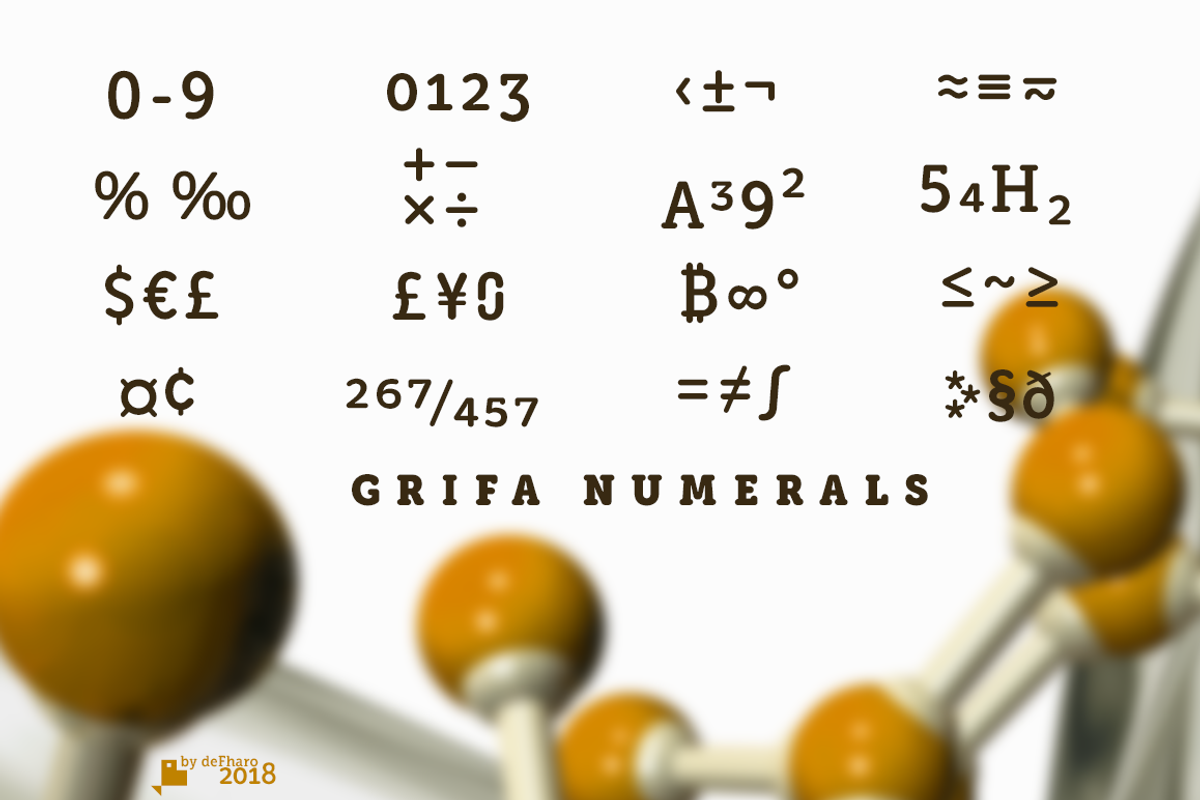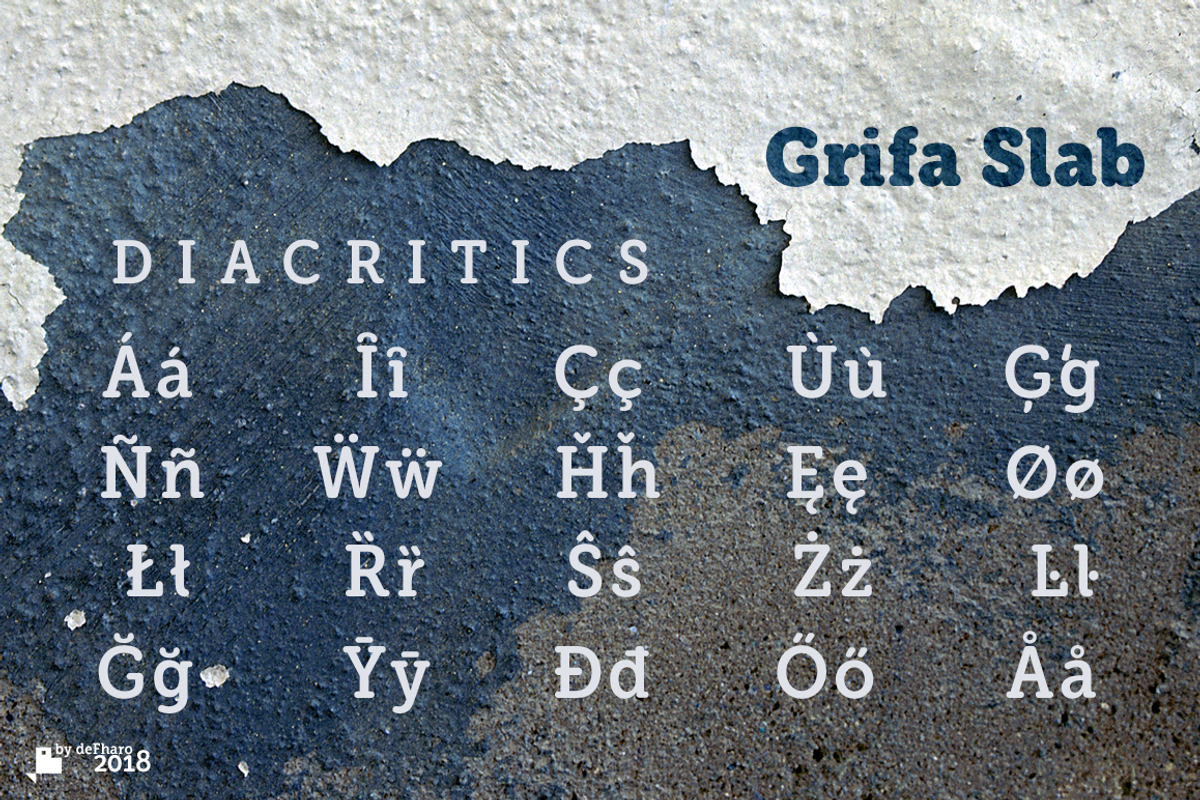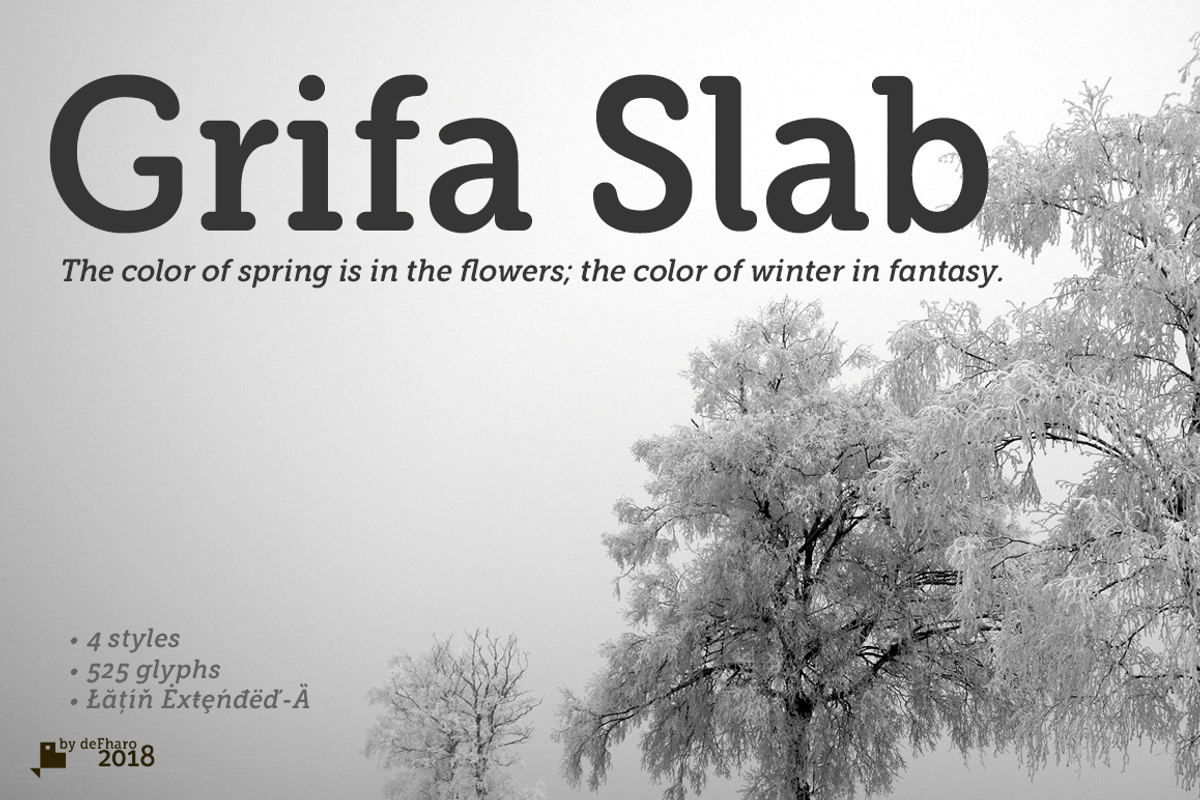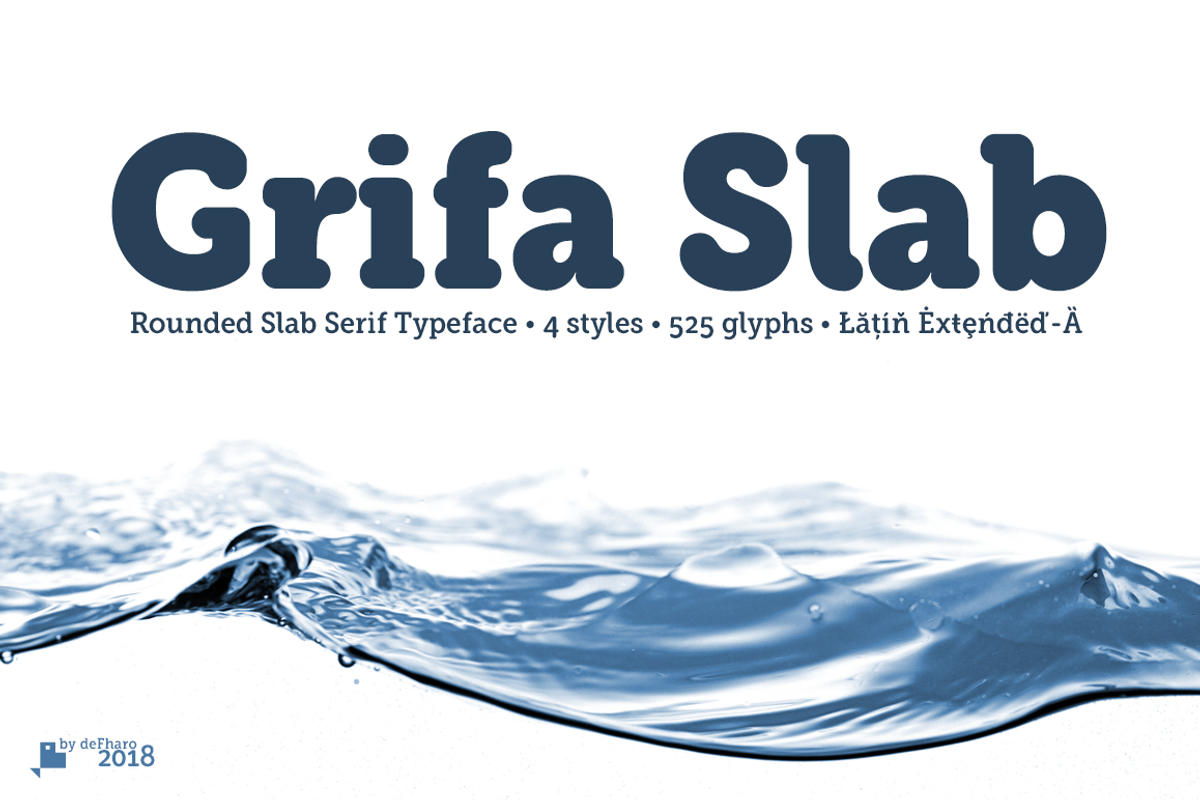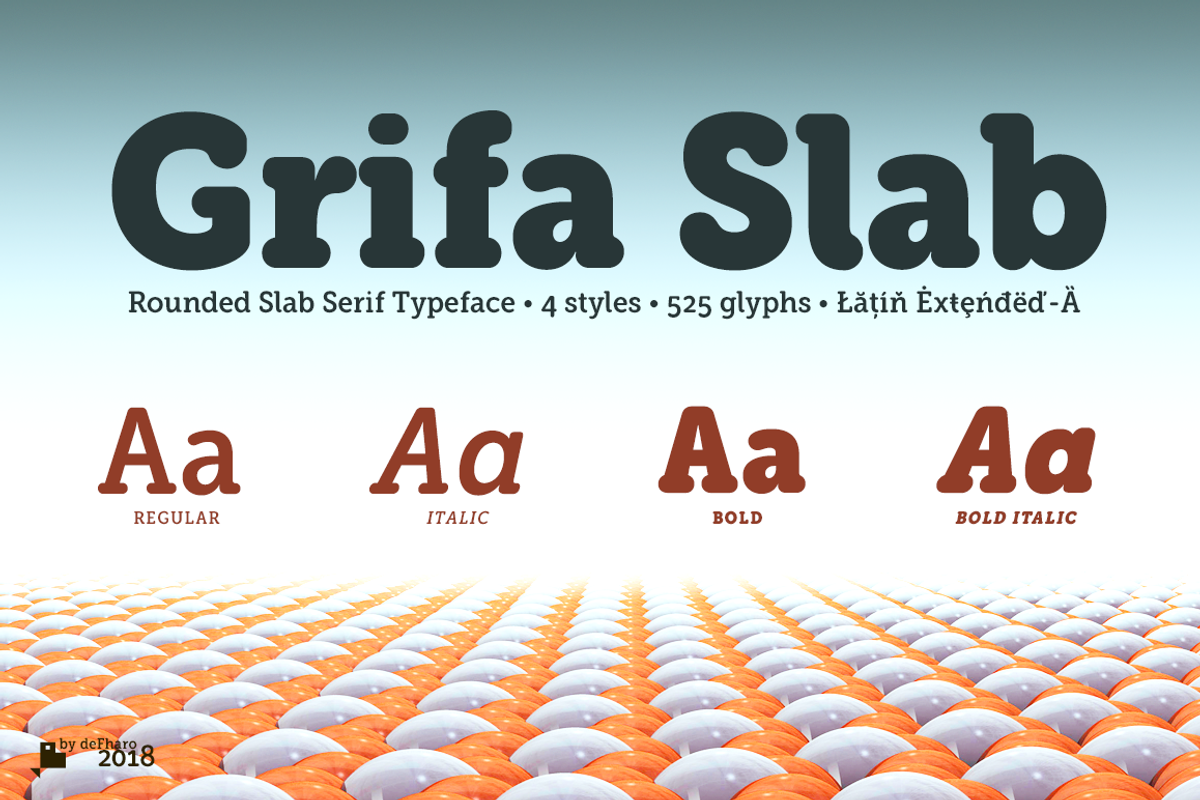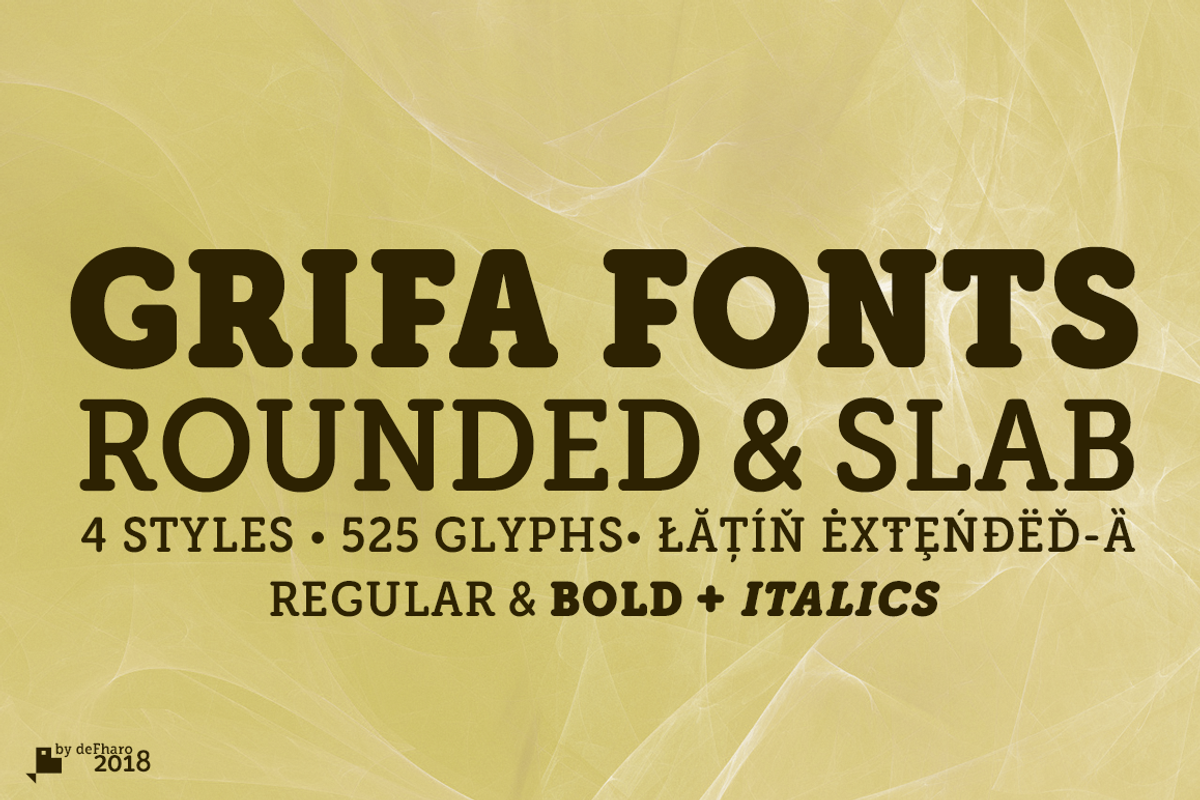
Grifa Rounded & Slab -4 fonts-
Grifa Slab is a chunky typeface with thick rounded slab serifs in 4 styles with true italics, ideal for very legible titles and with a hard and smooth aspect at the same time. You can use this font in editorial design for headlines, also for advertising and the design of posters, signs or posters, in all cases readability is guaranteed.
Grifa Regular & Bold + True Italics (4 fonts)
Grifa Slab includes the symbol of Bitcoin and currency symbols.
OpenType Features: Scientific Inferiors, All Alternates, Alternate Annotation Forms, Capital Spacing, Localized Forms, Historical Forms, Discretionary Ligatures, Superscript, Superiors, Superior letters, Subscript, Standard Ligatures, Slashed Zero, Additional languages, Ordinals, Oldstyle Figures, Numerators, Denominators, Kerning, Inferiors, Historical Ligatures, Fractions, Extended Fractions.